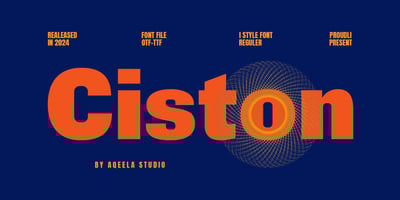
Ciston
Ciston font
Ciston Font Family was designed by Muhammad Nasir and published by Aqeela Studio. Ciston contains 1 styles and family package options. Imagine words that stand out and speak louder than the rest. The bold Ciston sans serif font is a typographic rebel, commanding attention with its clean lines and modern feel. The Ciston sans serif font is a go-to for brands and designs that refuse to blend in—a visual statement of confidence and clarity.